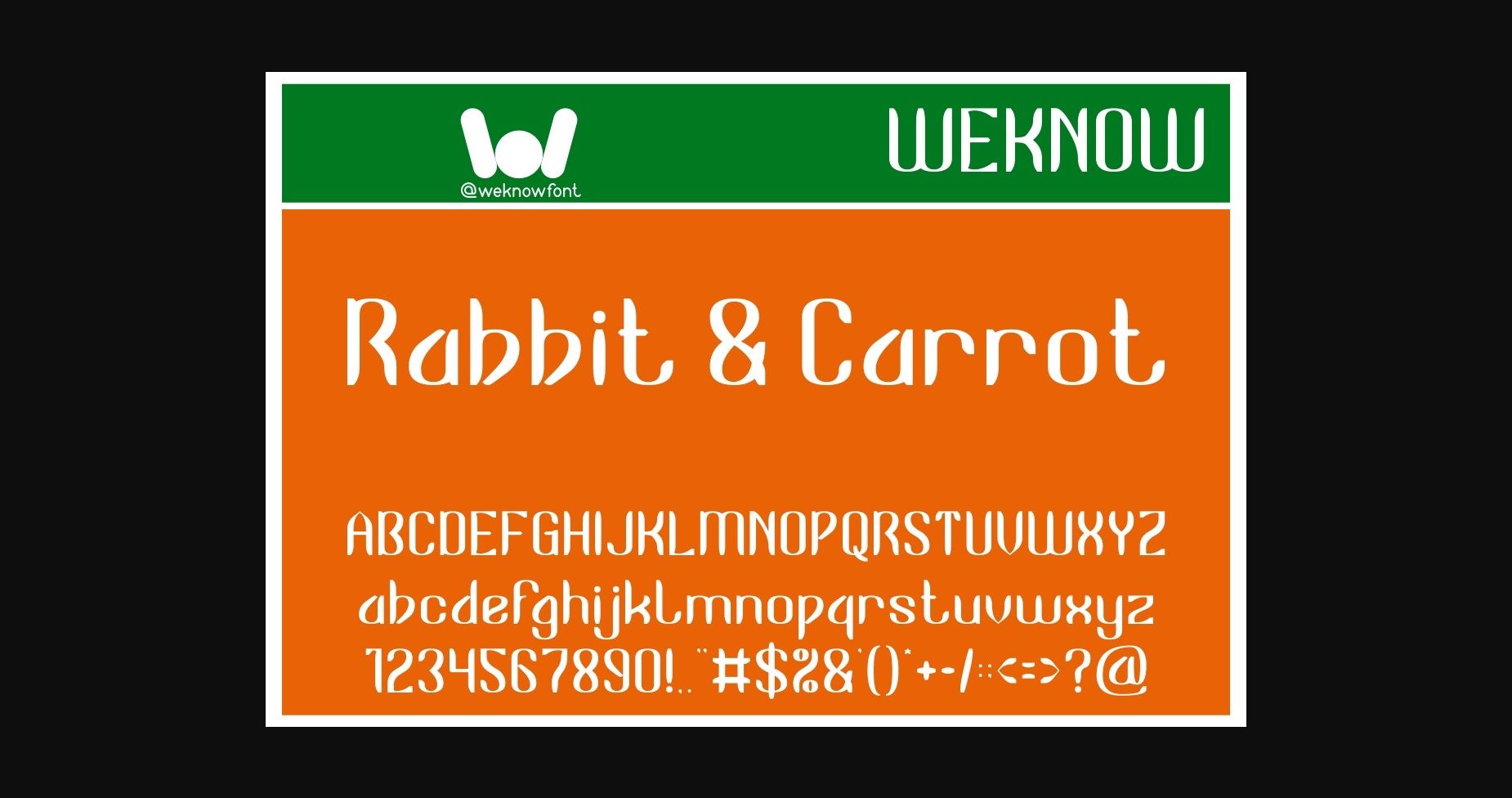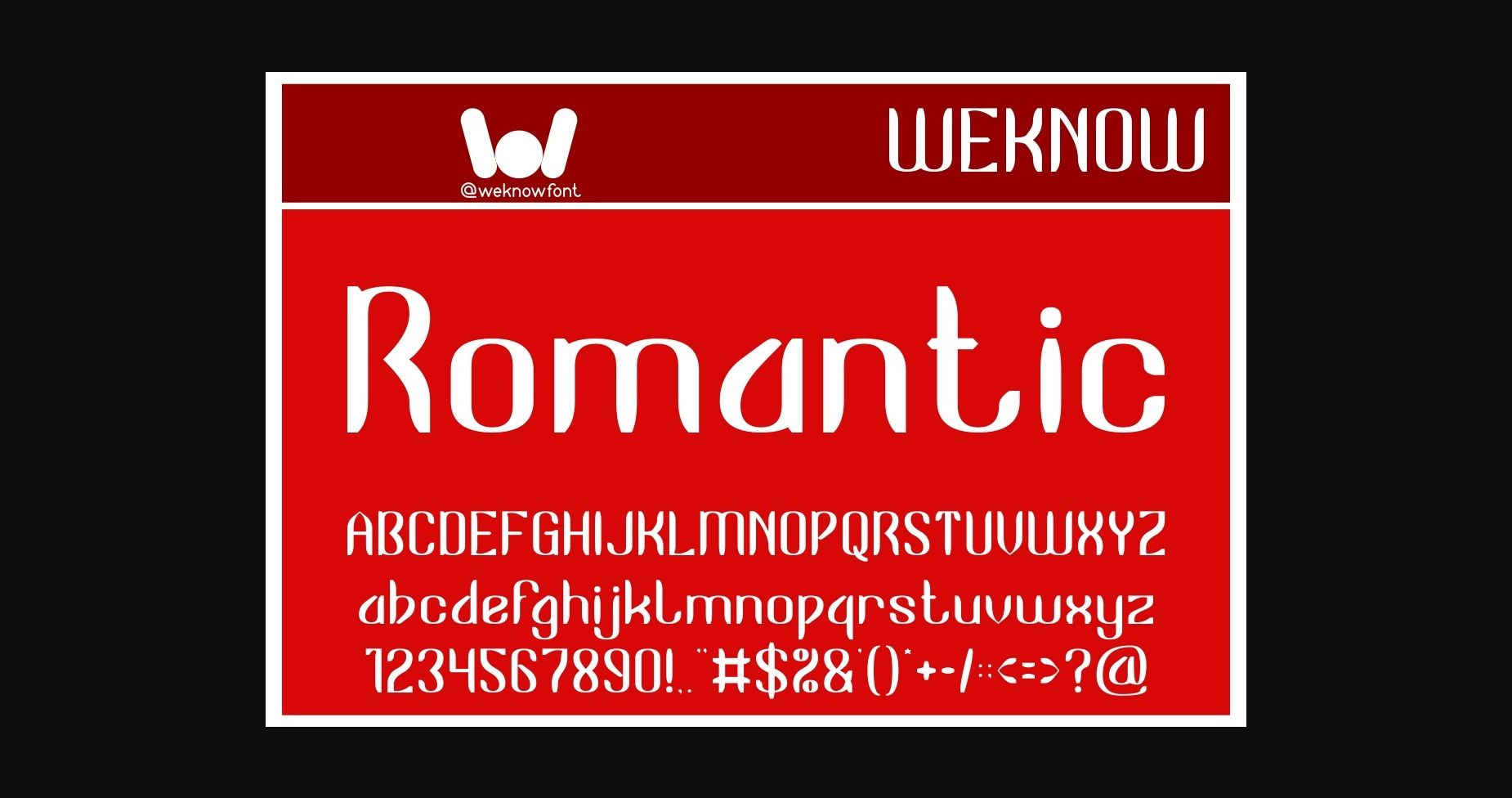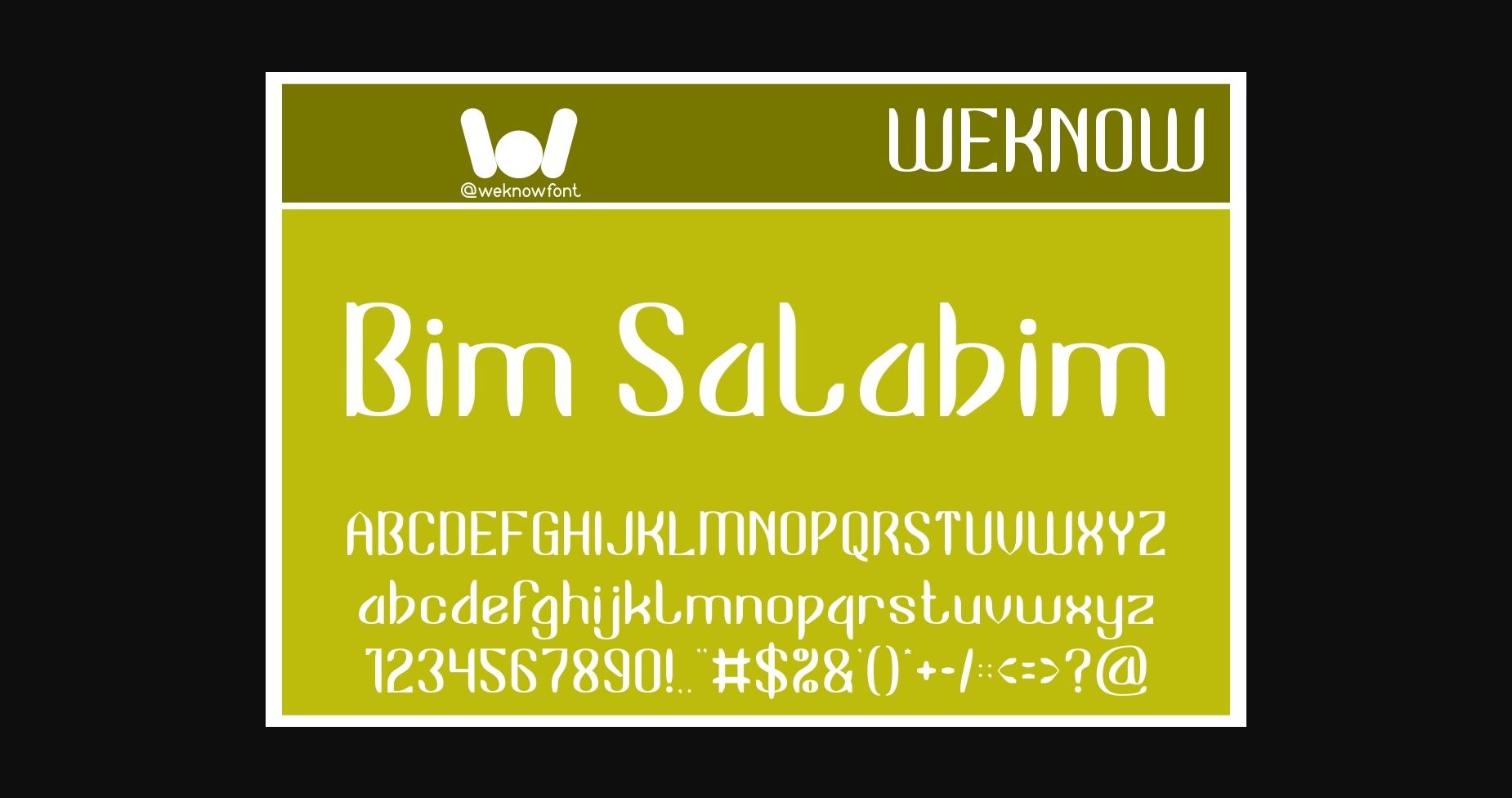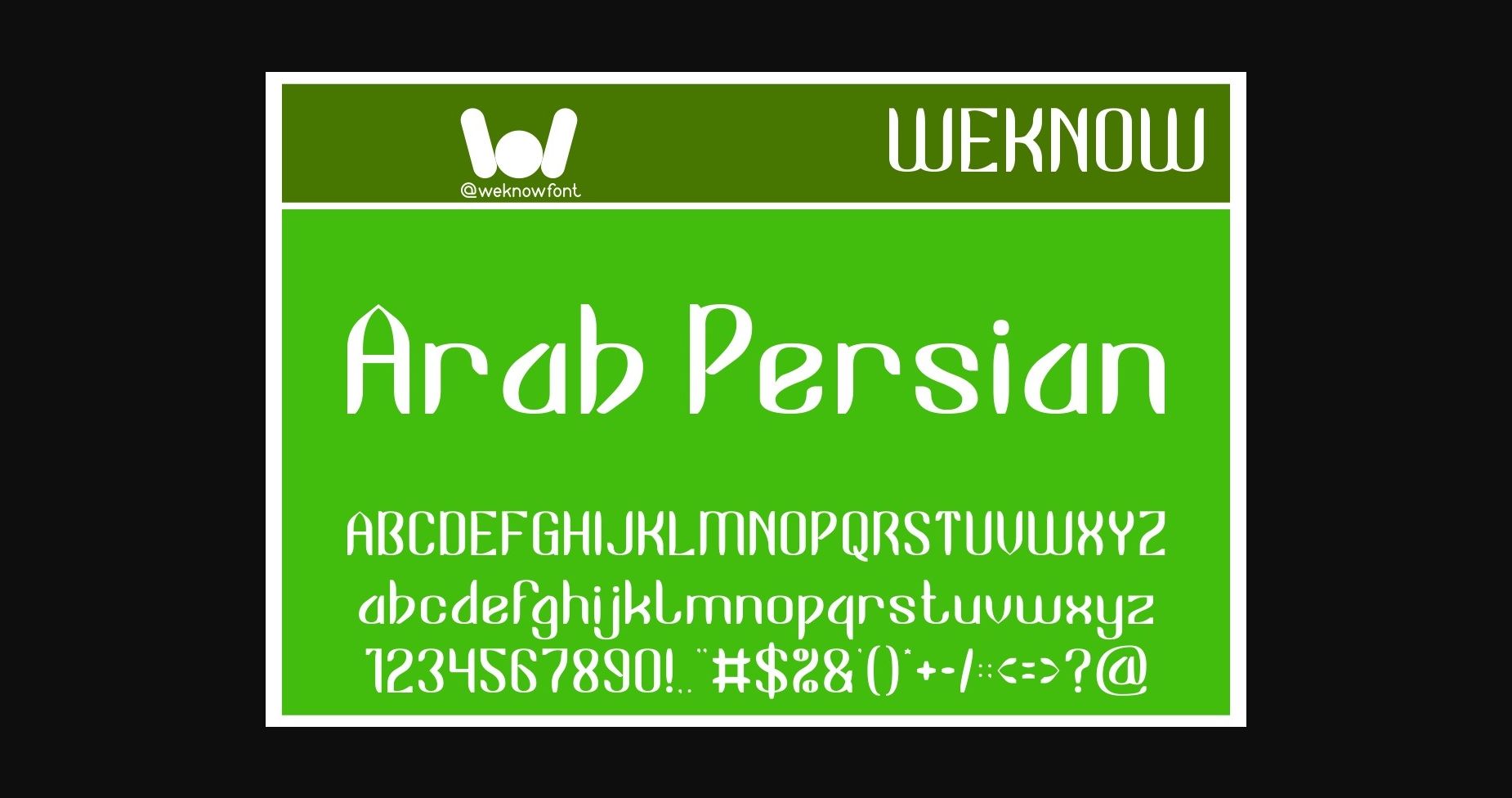
About Rabbit and Carrot Font
Rabbit and Carrot is a fancy display font, suitable for a logo, logotype, headline, corporate identity, brand identity, apparel industry, poster, music, movie, game, magazine, book, comic, cartoon, YouTube, Instagram, website, or any of your creative design projects.